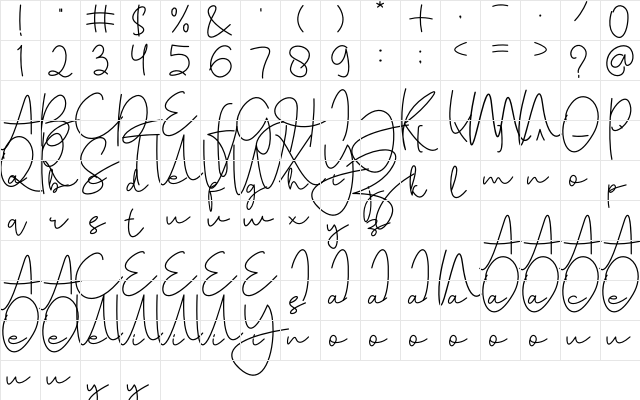
Tallitha Free Regular
Tallitha Free is a composed and adaptable typeface that performs quietly and consistently across a wide range of design contexts.